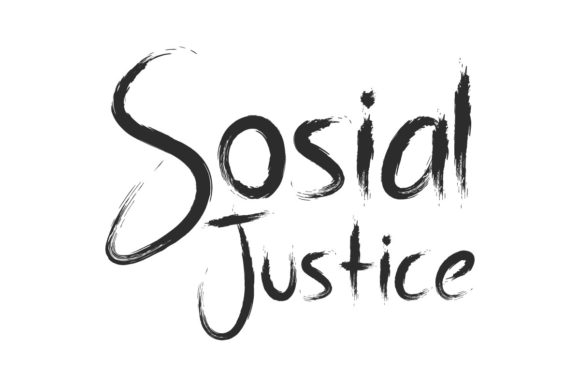
Step into the realm of the macabre with Sosial Justice Font, a horror-inspired display font that will send shivers down your spine. Crafted by the masters of the dark arts at NihStudio, this font is the perfect weapon for conjuring up spine-chilling posters, haunting invitations, and terrifying social media posts. Unveil the secrets of the night and let your creativity run wild with Sosial Justice Font.
Feast your eyes on the menacing brushstrokes and sharp edges that define every character in this font. It's as if the font itself has been summoned from the depths of a haunted mansion, ready to cast a spell on all who behold it. With Sosial Justice Font, your designs will possess an aura of mystery and intrigue that will leave your audience breathless. Picture your social media posts adorned with eerie greetings, your posters adorned with haunting imagery, and your invitations radiating an ominous glow.
Unlock the potential of your Halloween-themed projects with Sosial Justice Font. Let your imagination soar as you create spellbinding designs that capture the essence of the supernatural. Unleash the power of darkness and watch as your creations come to life, captivating and enchanting your audience. The only limit is the darkness within your own imagination. Embrace the horror and let Sosial Justice Font guide you on a journey into the unknown.
With Sosial Justice Font, ordinary becomes extraordinary, and the mundane transforms into the macabre. Take the leap into the shadows and let your creativity thrive in the realm of the supernatural. Dare to be different, dare to be bold, and immerse yourself in the world of horror with Sosial Justice Font. Embrace the darkness and let your imagination run wild.